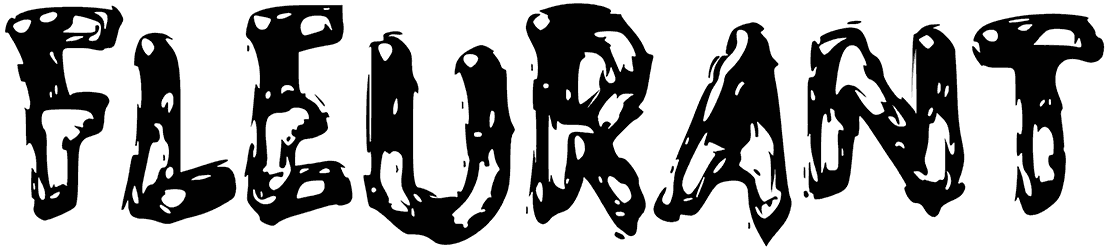
f Fleurant Font
Borrow the eccentric decorative touch of f Fleurant for your posters, T-shirts, and anywhere else you wish to be more creative. This is one of those monster fonts that can set your design apart by impressing the audience with your sense of innovation.
With f Fleurant, you’ll take a fun approach to communicating with your readers as you customize your typography with such a wild graffiti font. Its messy letters work better than any sophisticated font, making things highly interesting.